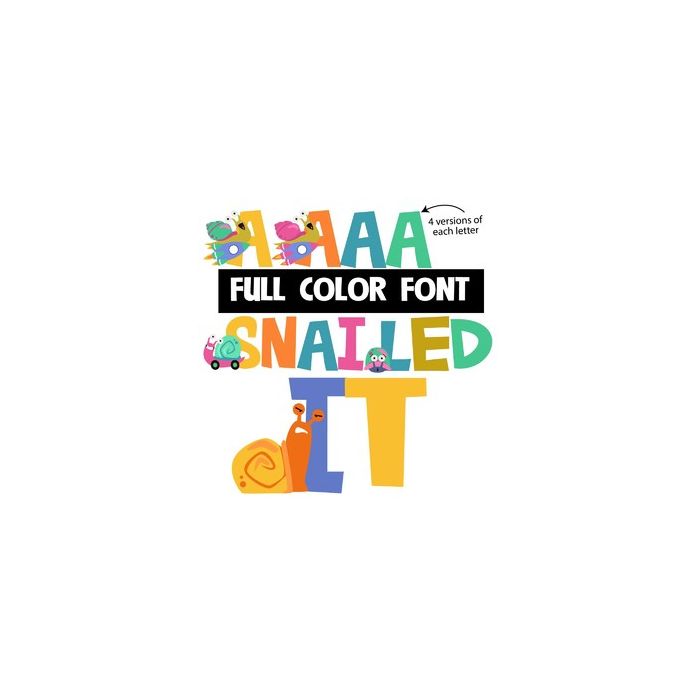
This full-color font features bright lettering with snails in front of the uppercase. There is an alt upper and lowercase with different coloring you can access through Silhouette's Glyph map.